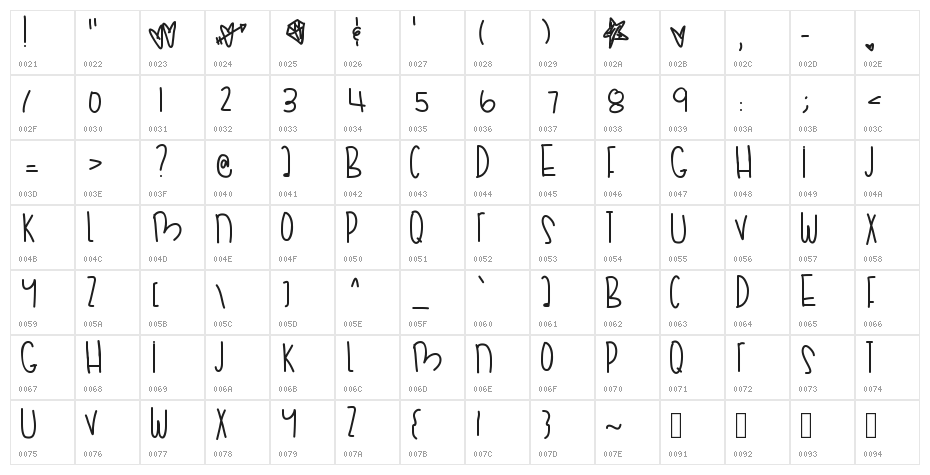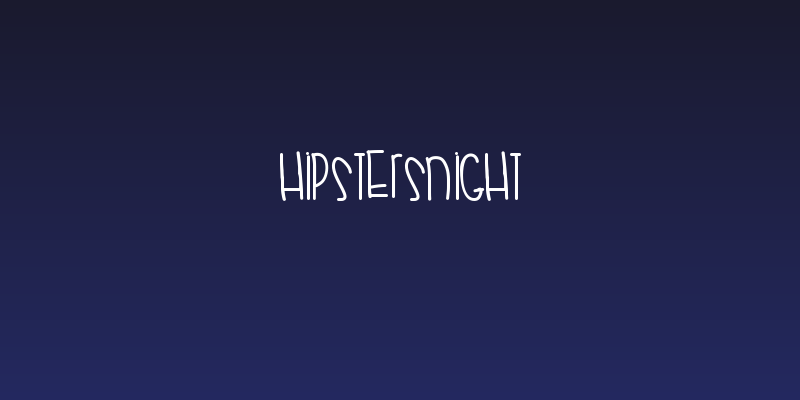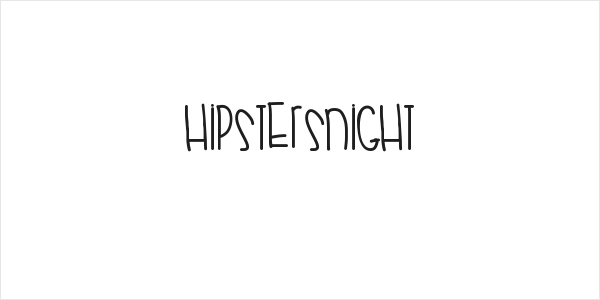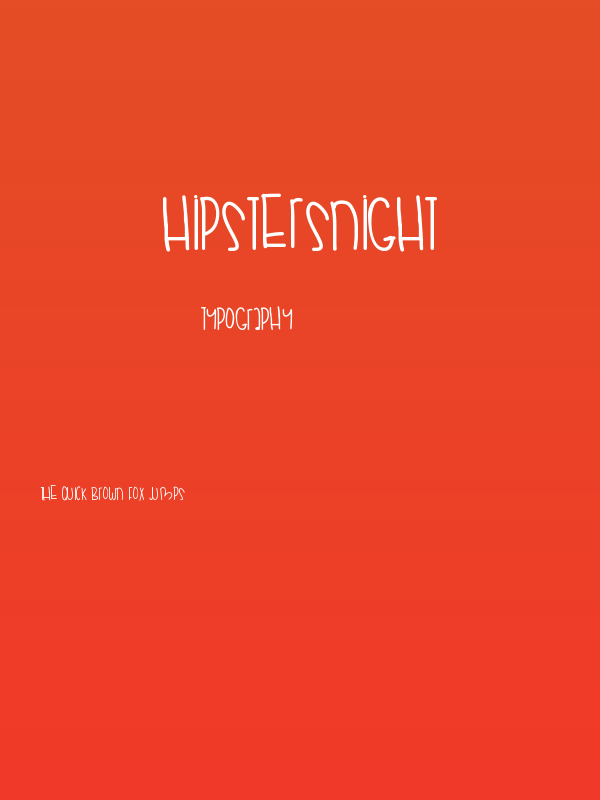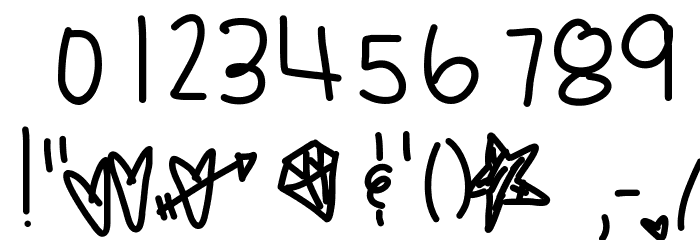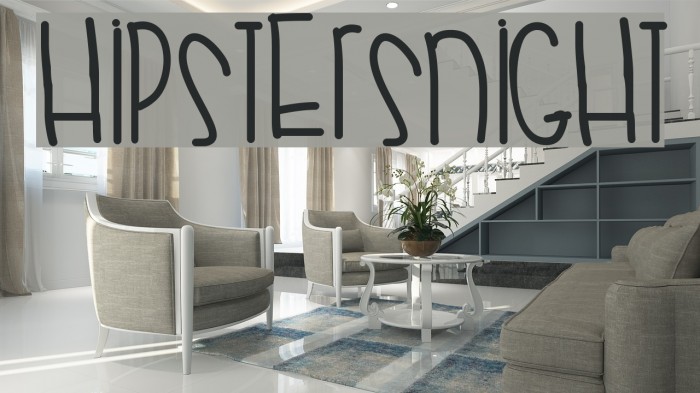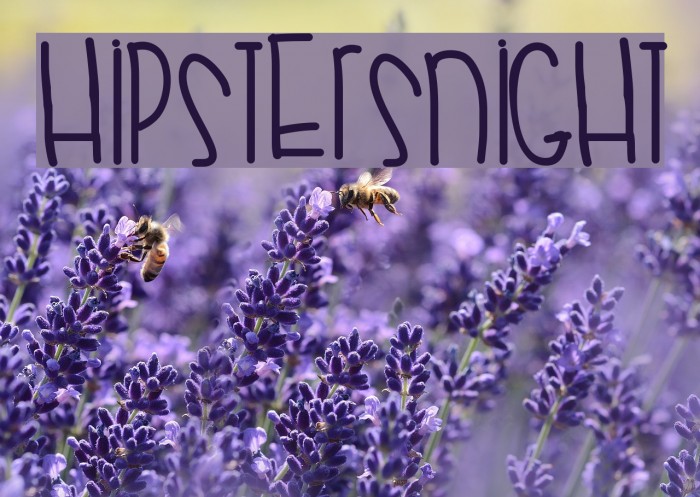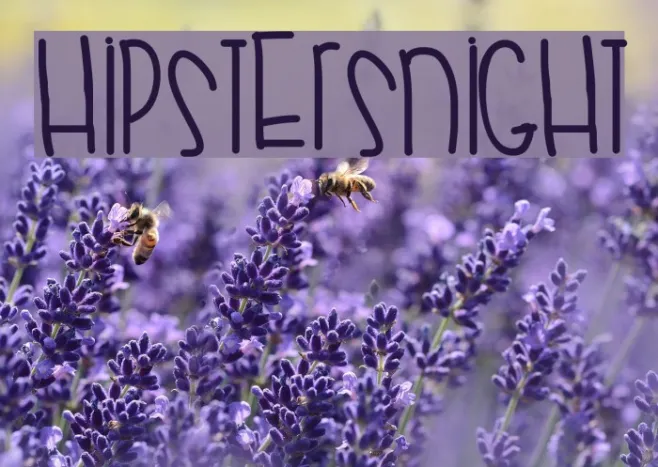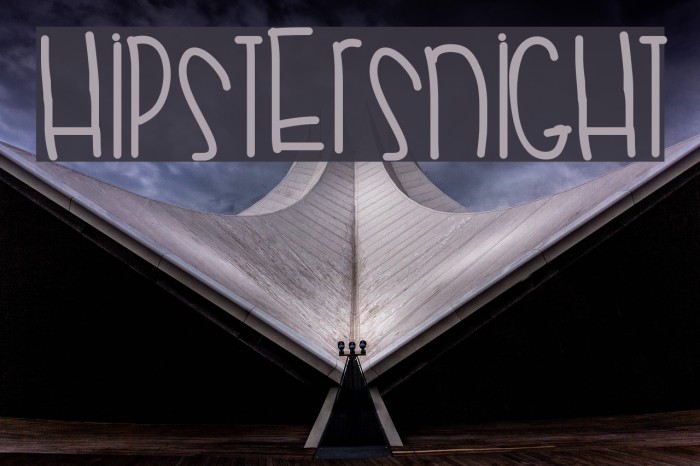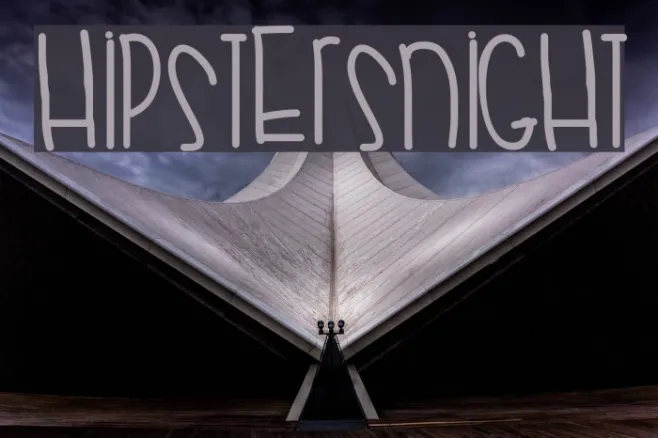
HipstersNight Font
HipstersNight Description
This font exhibits a playful and whimsical handwritten style, characterized by its tall, narrow letterforms and slightly irregular strokes. The uppercase and lowercase letters maintain a consistent height, contributing to a cohesive appearance. The strokes are smooth and flowing, with rounded edges that add a friendly and approachable feel. The numbers and special characters are equally playful, featuring unique and creative designs that complement the overall aesthetic. This font's distinctive style makes it stand out, offering a modern twist on traditional handwritten fonts.
| Proposed Projects | Ideal for creative projects such as greeting cards, invitations, children's books, and playful branding materials. |